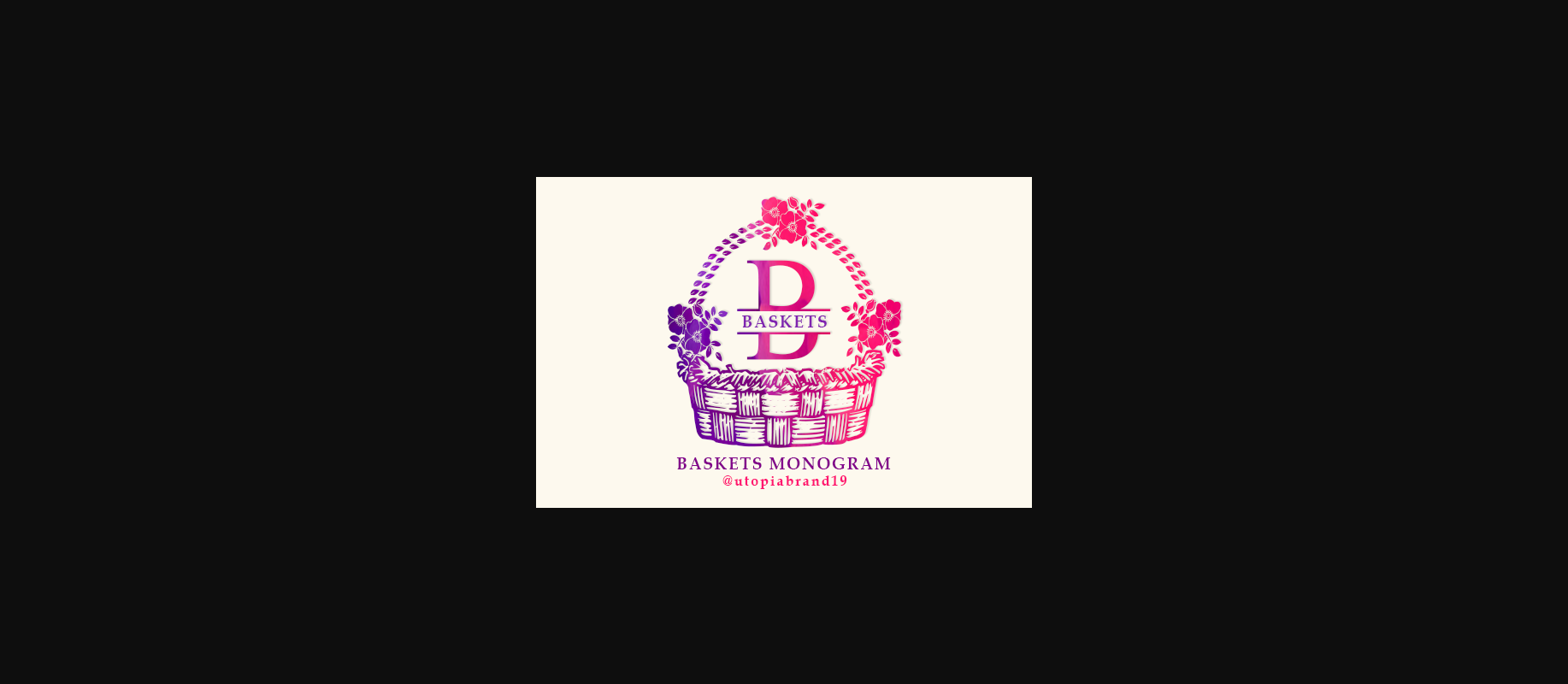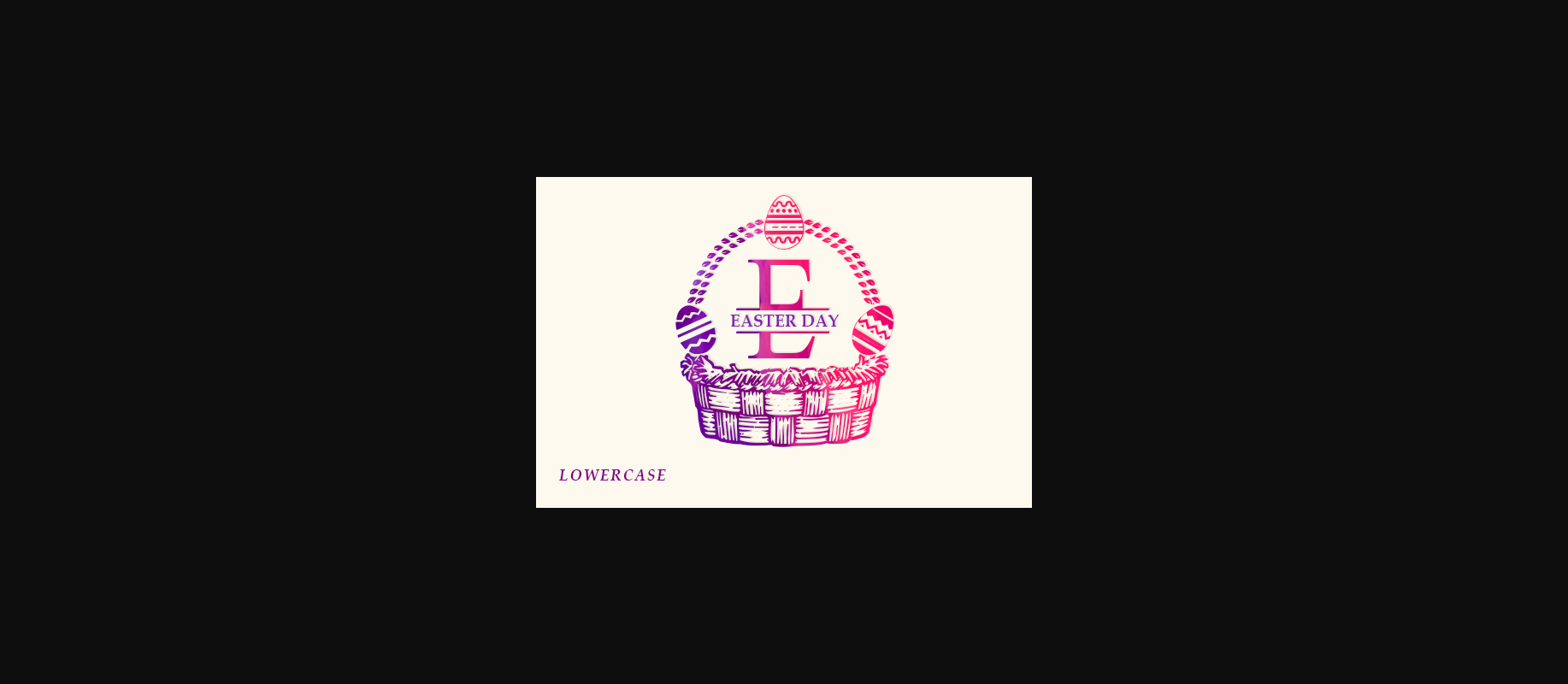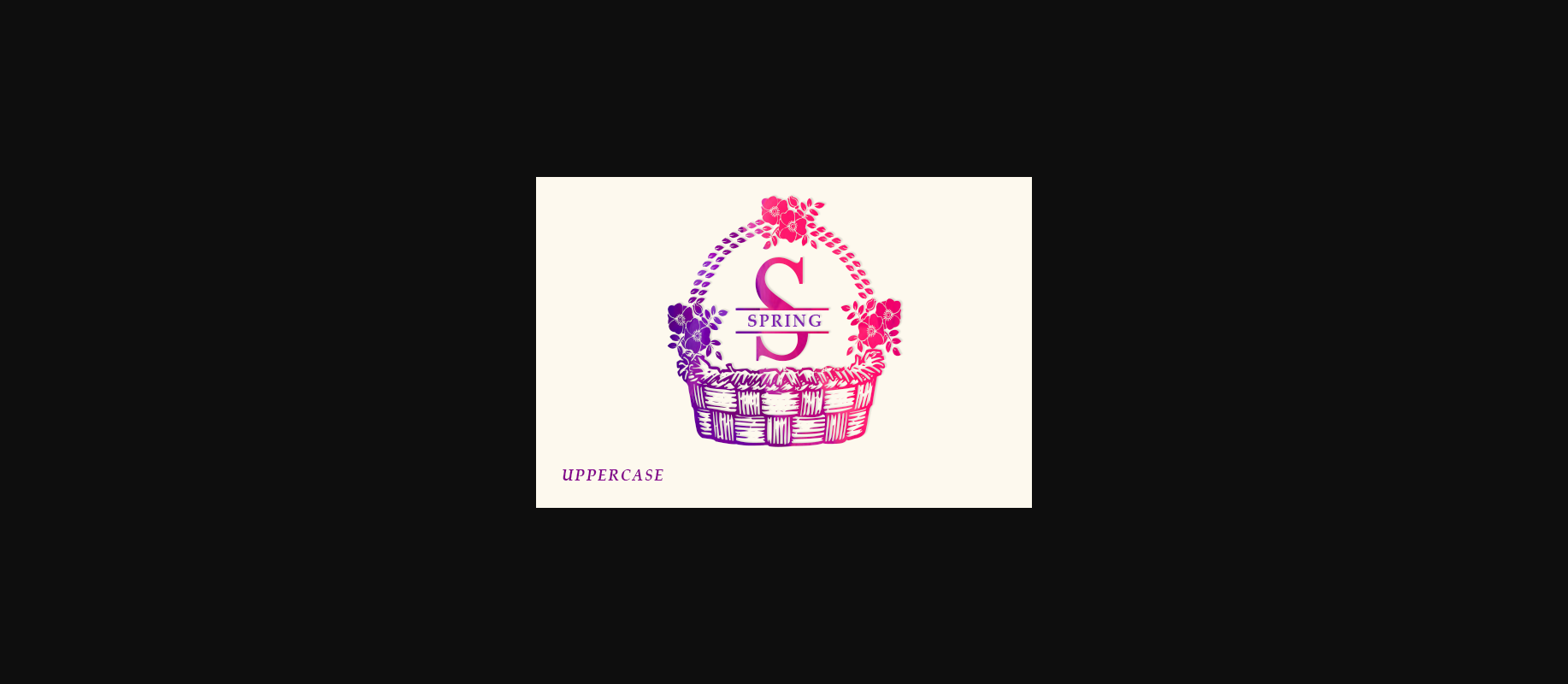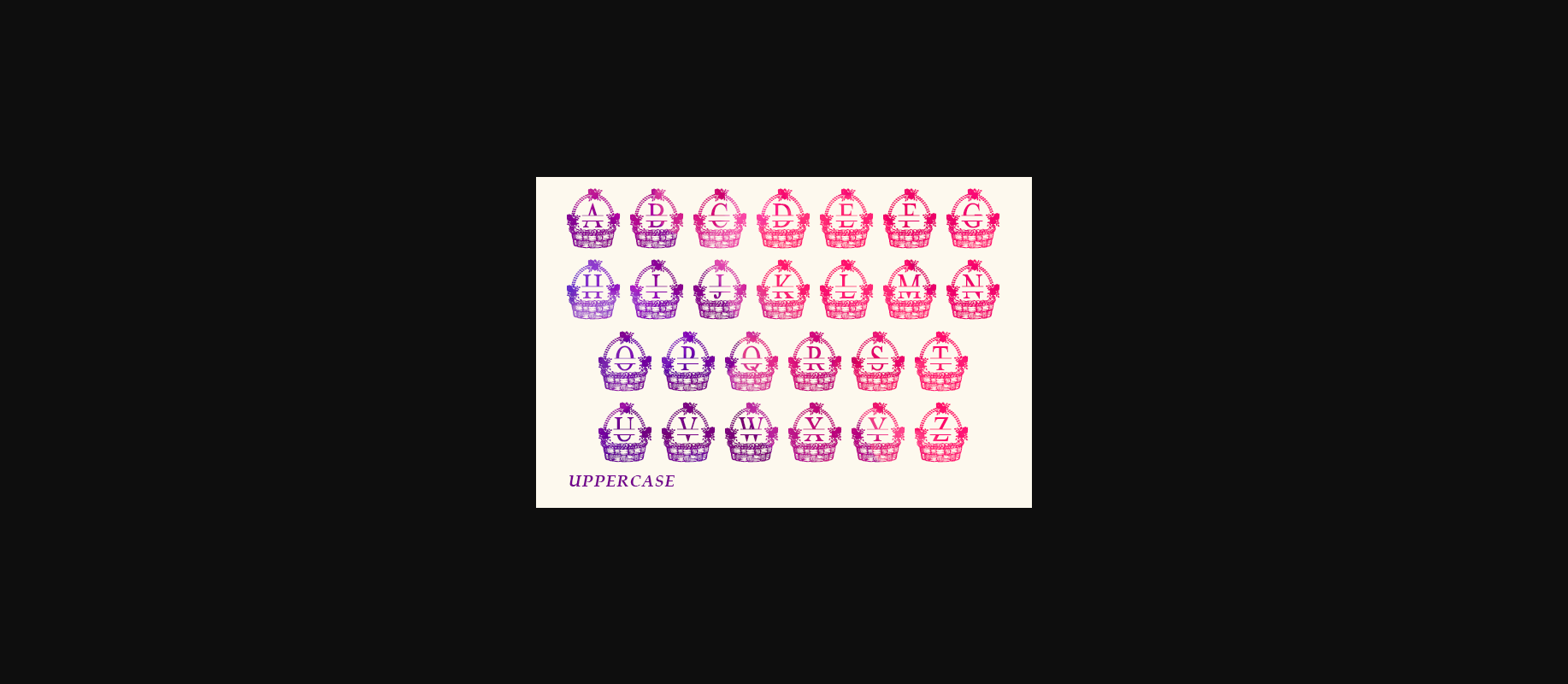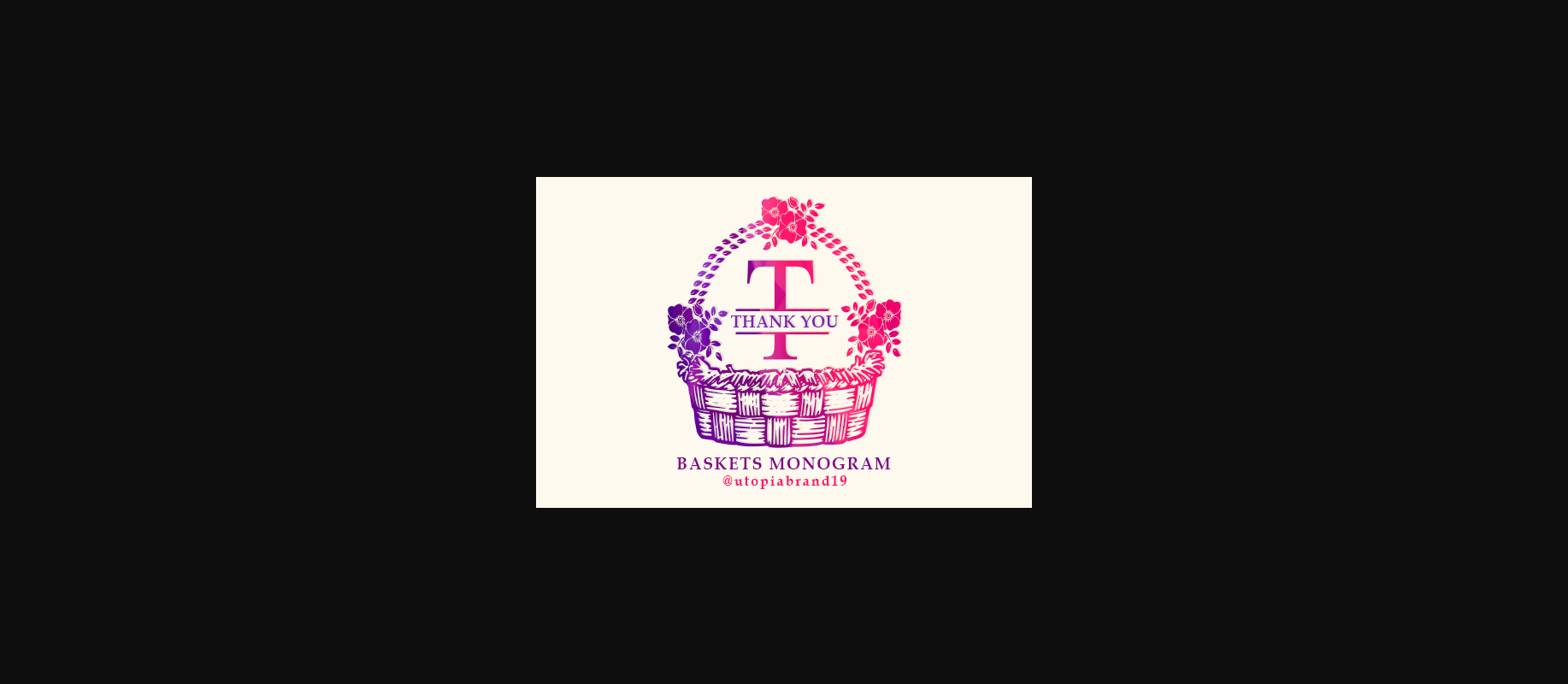
Baskets Monogram Font
About Baskets Monogram Font
Baskets Monogram is a sweet decorative font, ideal for your Easter related design ideas. Simple but with a strong visual effect, this font will instantly make your creation more appealing than any others.